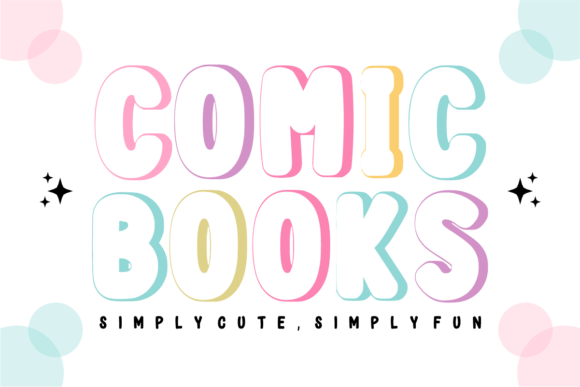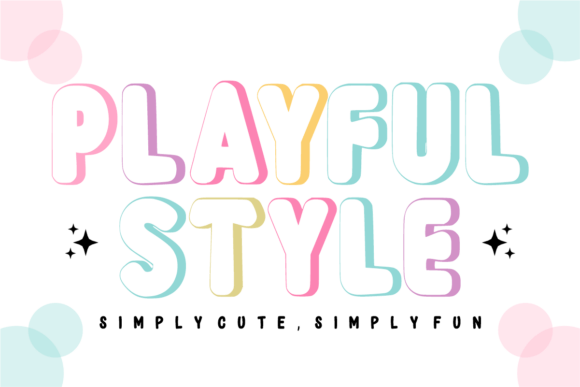
Introduction to Smooth Shadow Font
🌈 Smooth Shadow – Simply Cute & Simply Fun Display Font 🌈 Add a touch of softness and depth to your creations with Smooth Shadow.
This font features a delightful chunky design with a built-in smooth shadow effect, giving your text an instant 3D look without any extra effort Designed with a “simply cute, simply fun” philosophy, it brings a cheerful and friendly atmosphere to every word.
Key Features of Smooth Shadow Font
Why Choose Smooth Shadow Font?
Smooth Shadow Font offers exceptional quality and versatility, making it a valuable addition to your design toolkit. Whether you’re creating for personal projects or commercial use, Smooth Shadow Font delivers professional results.